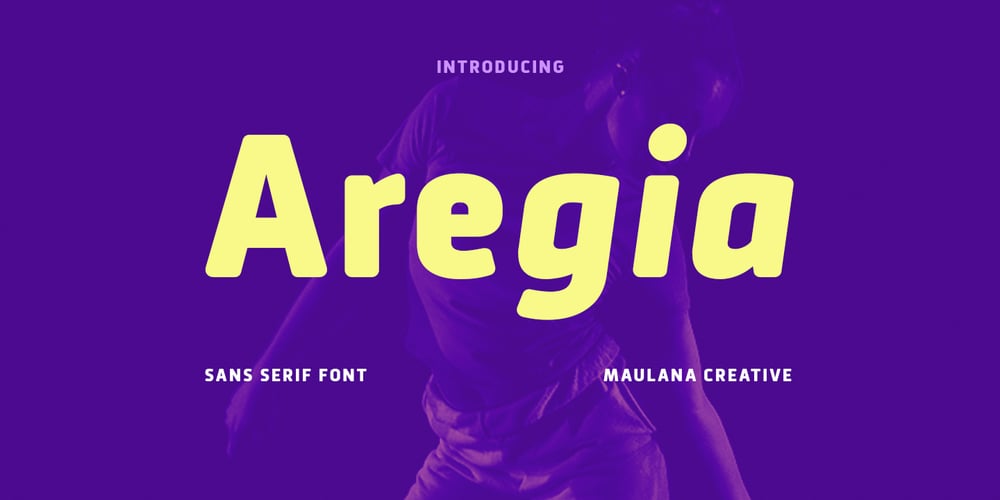
MC Aregia
MC Aregia font
MC Aregia Font Family was designed by Gilang Maulana and published by Maulana Creative. MC Aregia contains 2 styles and family package options. Aregia is a modern round sans font. Bold stroke, fun character with a bit of ligatures and alternates. To give you an extra creative work. Aregia font support multilingual more than 100+ language. This font is good for logo design, Social media, Movie Titles, Books Titles, a short text even a long text letter and good for your secondary text font with script or serif. Make a stunning work with Aregia font. Cheers, Maulana Creative